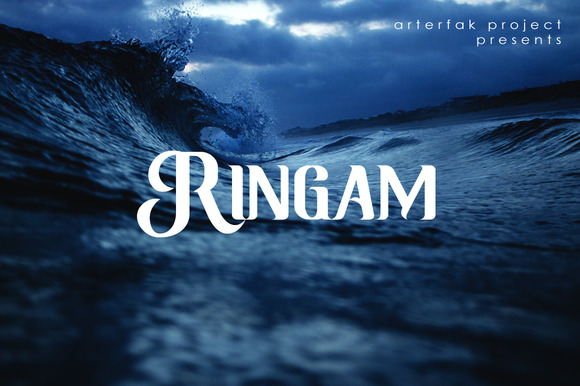
Ringam Font
Step into the world of Ringam Font, a display typeface that captures the essence of ornate lettering and vintage styles. Embark on a journey through time as you explore this captivating font, meticulously crafted by Arterfak Project.
Unleash your creativity with Ringam Font. Express yourself in ways you never thought possible. Let your words dance across the page, adorned with the elegance and charm of a bygone era. With Ringam, your designs will exude a timeless allure that resonates with audiences of all ages.
Ringam Font is more than just a font; it's an experience. Immerse yourself in the intricate details that bring each character to life. The flowing lines and delicate flourishes create a visual symphony that captivates the eye and stirs the imagination. Ringam is not just a font; it's an art form.
Discover the versatility of Ringam Font. Whether you're designing logos, posters, invitations, or social media graphics, Ringam seamlessly adapts to your vision. Its timeless appeal transcends trends, making it a font that will remain relevant for years to come. With Ringam, your designs will stand the test of time.
Embrace the beauty of Ringam Font. Its intricate details and vintage charm will elevate your designs, adding a touch of sophistication and elegance. Prepare to be amazed by the endless possibilities that await you.